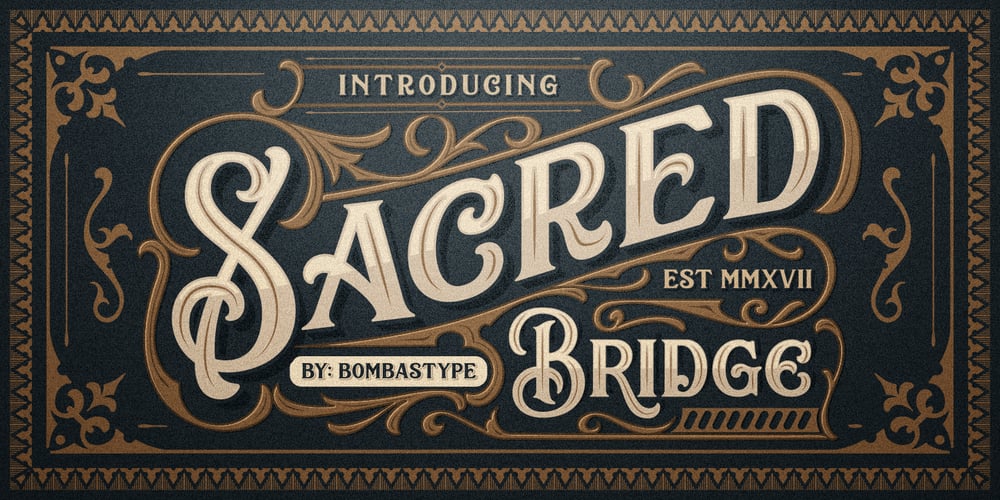
Sacred Bridge
Sacred Bridge font
Sacred Bridge Font Family was designed by Amir Subqi Setiaji, Bangkit Tri Setiadi and published by Bombastype. Sacred Bridge contains 10 styles and family package options. Sacred Bridge is an old fashioned display typeface, inspired by vintage signage combined with ornaments that were inspired by certain Indonesian tribe ornament feels, because our little type foundry is focused on vintage display fonts. Till now at least. Sacred Bridges offers a layered system, with regular, rough and slant versions from each style. And don’t forget about the Extras (ornaments) we offer. You’ll get separate ornaments and objects that you can mix and match. We also give you most of our ornaments seen in our display.